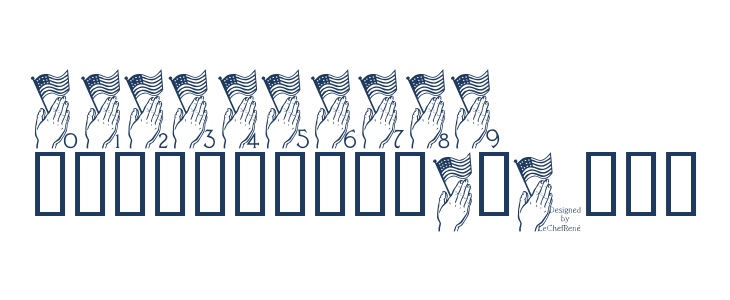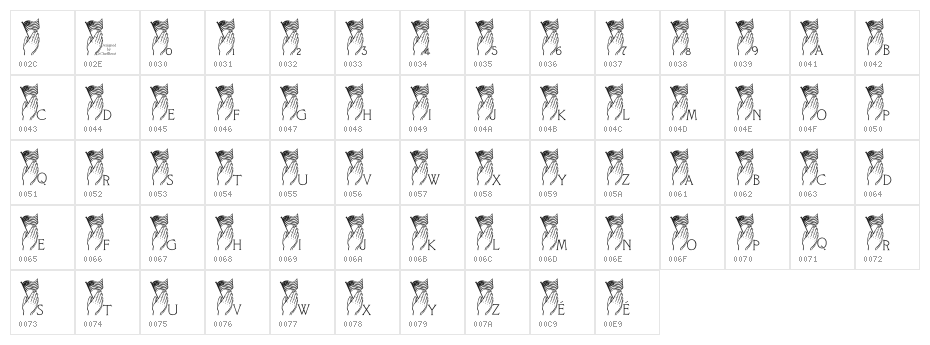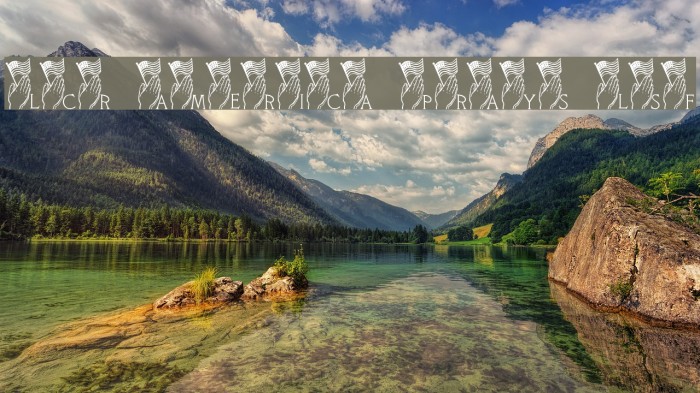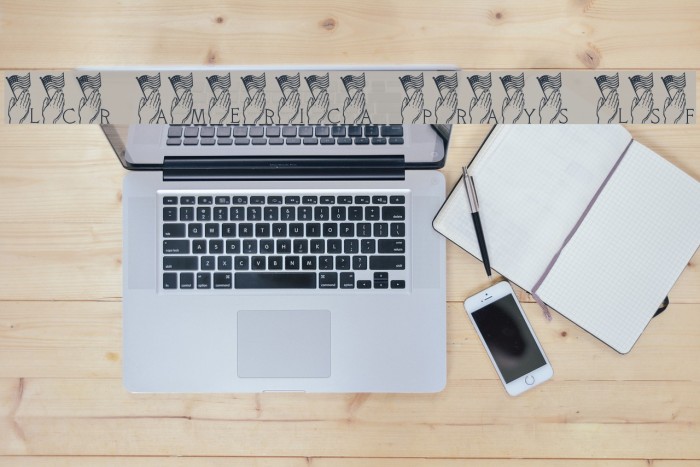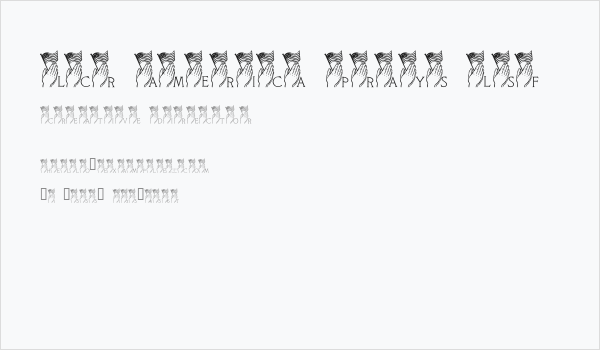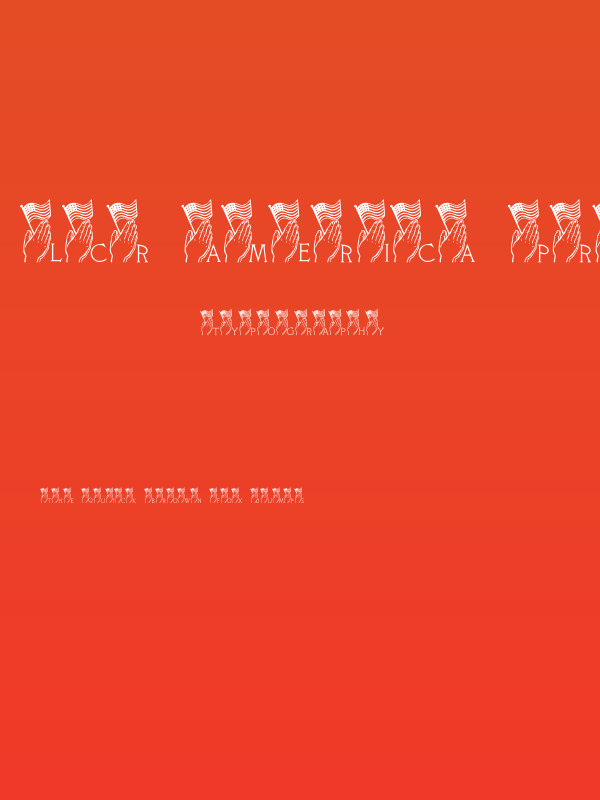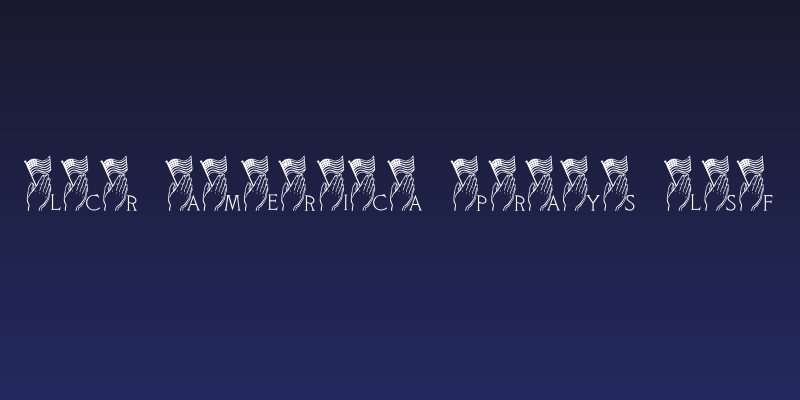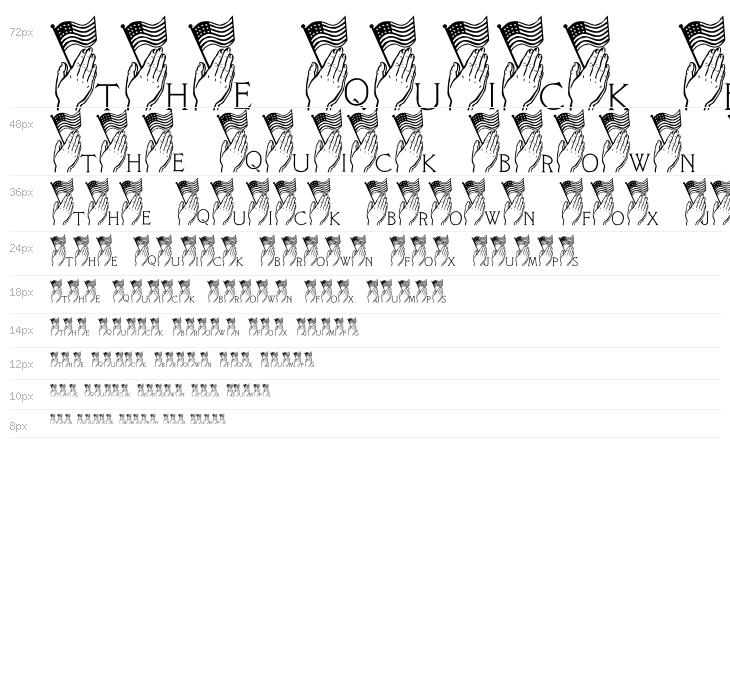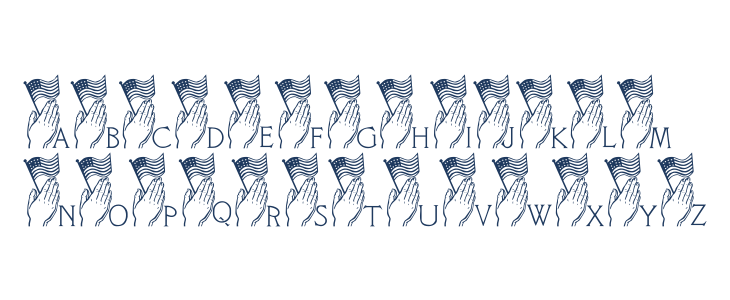
LCR America Prays LSF Font
LCR America Prays LSF Description
This font features a unique and patriotic design, incorporating an American flag and praying hands motif with each character. The letters are serifed and have a classic, elegant appearance, enhanced by the symbolic imagery above each character. The uppercase and lowercase letters maintain a consistent style, while the numbers and special characters also follow this thematic design. This font is visually striking and carries a strong thematic message, making it suitable for projects that aim to evoke a sense of patriotism or spirituality.
Use CaseHeadlines, Posters, Themed Designs
Proposed ProjectsIdeal for patriotic event posters, religious or spiritual publications, and themed graphic design projects.